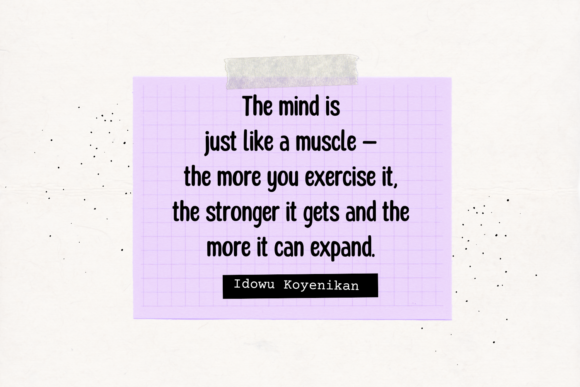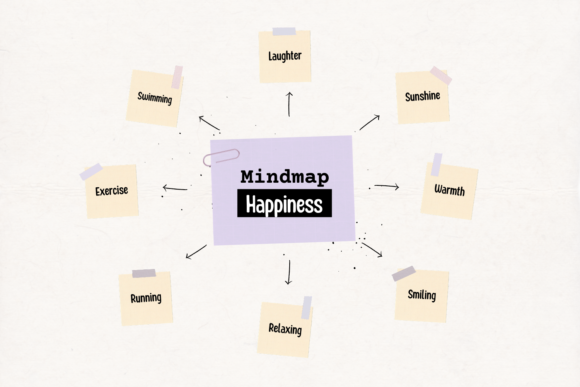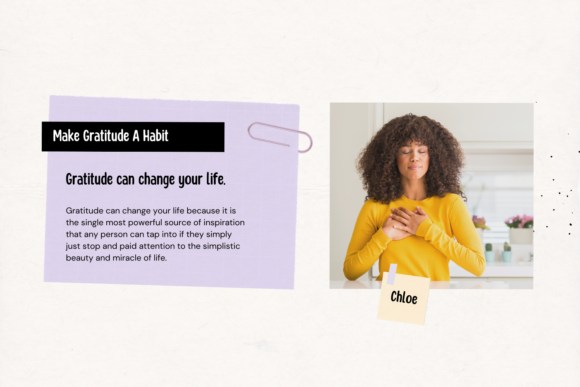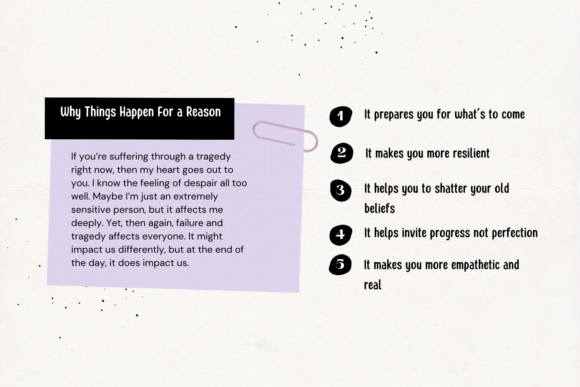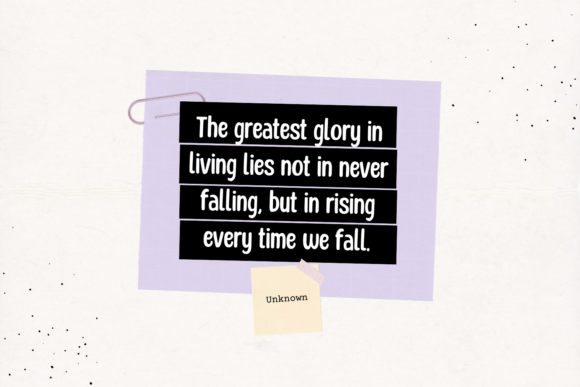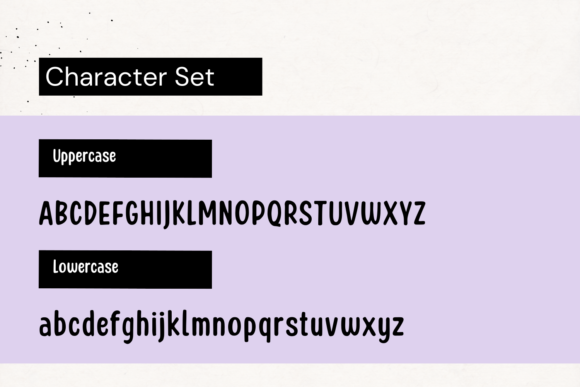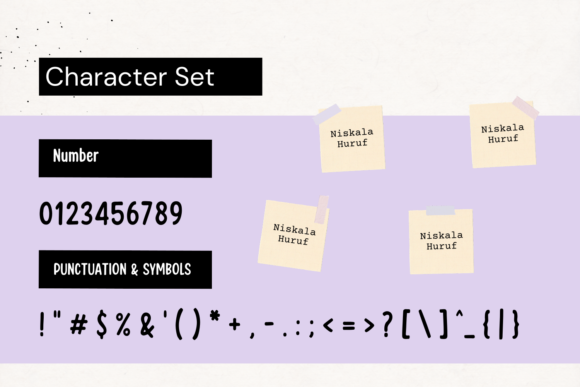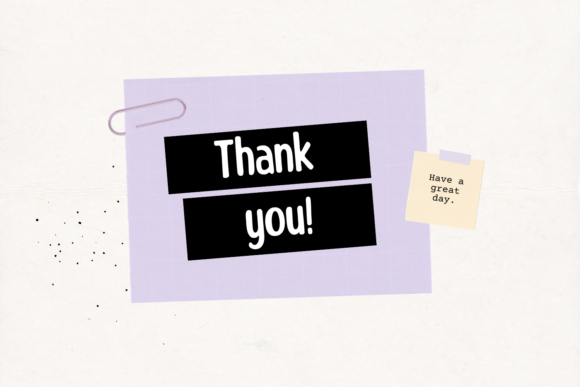
Honey Notes Font
About Honey Notes Font
Honey NotesĀ is a simple and neat handwritten font that can be used for all chalkboard quotes or teaching material! Its authentic look and feel will add a personal and realistic feel to your designs.